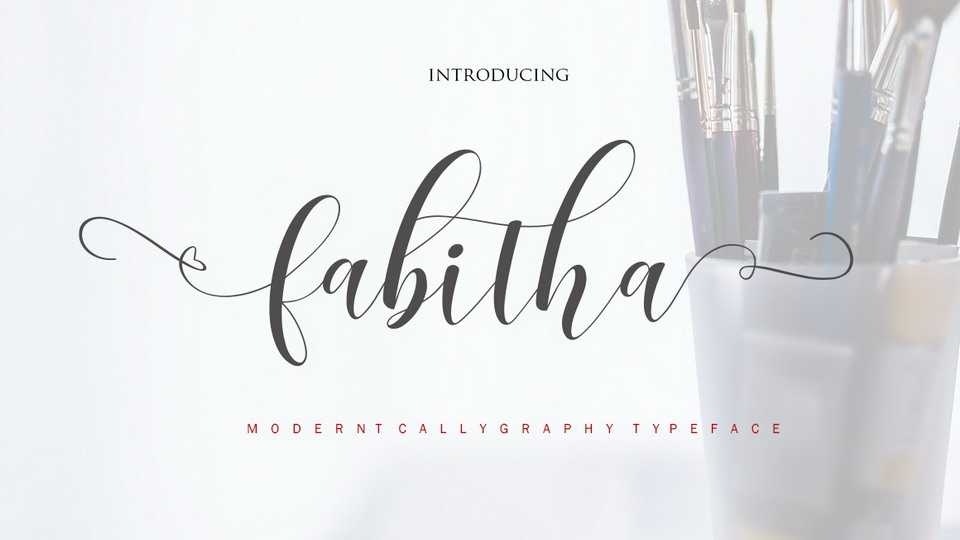
Download Fabitha font, a pretty modern calligraphy script with a bouncy flow. Perfect for branding, wedding invites, magazines, mugs, business cards, quotes, posters and more.
Designer: mightype